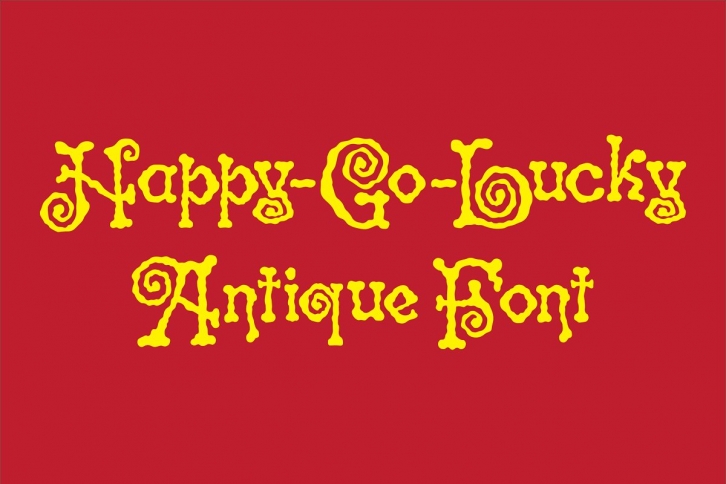
Happy-Go-Lucky is my interpretation of an antique typeface of the nineteenth century.
The font includes upper and lowercase alphabets, numbers, punctuation, accented characters, symbols, and miscellaneous characters.